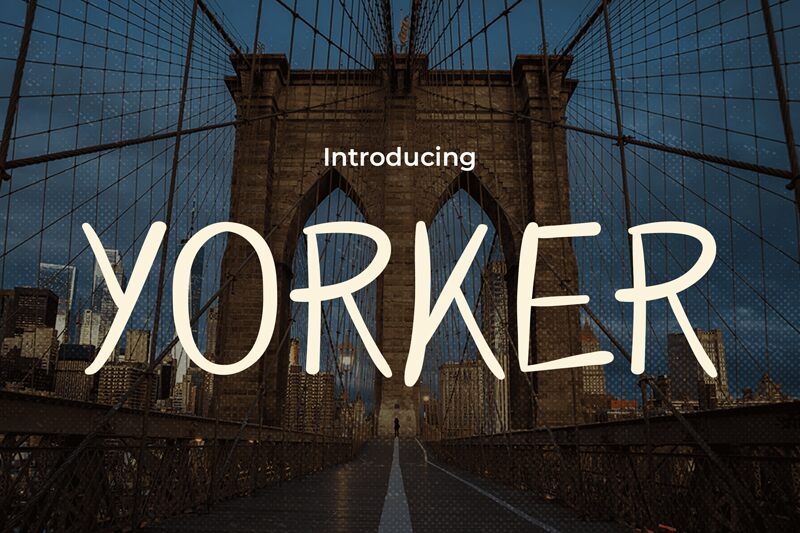
Yorker font by Pinisiart is a free handwritten font with a friendly casual feel. The informal lines have a natural and distinctive aesthetic that derives directly from hand-drawing techniques. Its casual appearance makes it modern and enjoyable to read in both personal and professional contexts.
This lovely typeface is a great choice for branding designs, advertising content, packages of all sorts, book titles, social media content, and other marketing mediums. Be it for modern, playful, casual, or even more formal purposes, this font has something to offer.